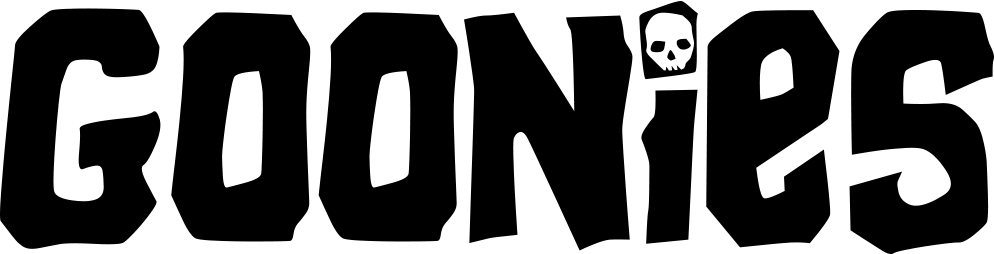
Goonies Font
If you want a grunge and punk vibe for your texts, take a look at Goonies. This angular font is bold and edgy and gives off a spooky and retro feeling.
You can use this Halloween font for any gaming title, crime and scary movie headlines, punk/rock/metal song or album, any Halloween-related texts or banners, and informal headlines.